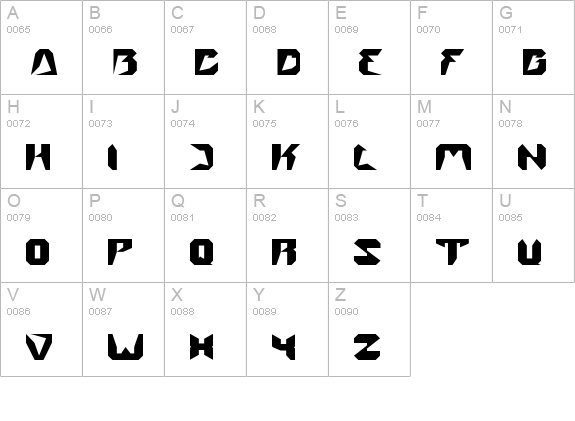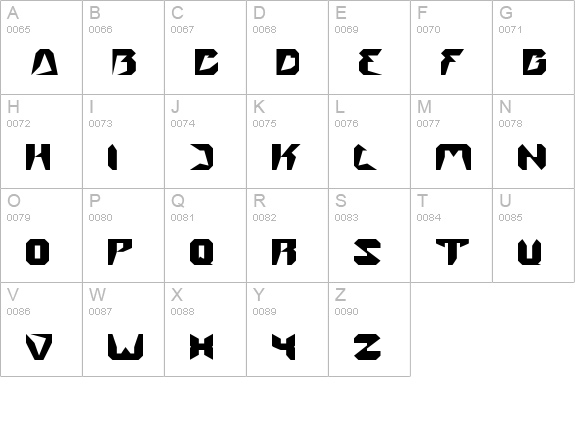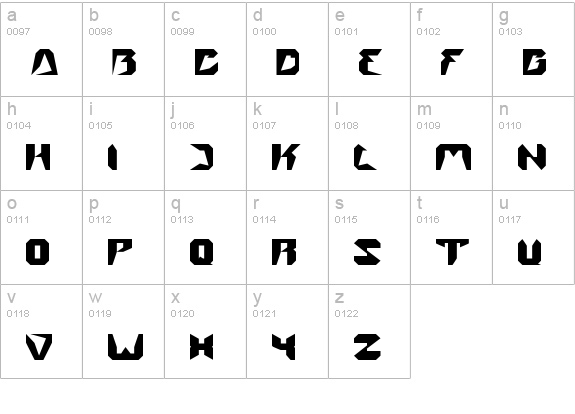
street Font Details
Introducing Street Font, a visually captivating typeface that exudes urban charm and embodies the energetic spirit of the streets. With its bold and edgy letterforms, Street Font is the perfect choice for projects that aim to make a bold statement. Designed with meticulous attention to detail, this unique font captures the essence of street art and graffiti, bringing an authentic urban feel to your designs. Its dynamic and expressive strokes create a sense of movement and excitement, ensuring that your message will truly stand out. Street Font is not just visually stunning, but also incredibly versatile. Whether you're designing a poster, a logo, or a website, this font will add a touch of urban flair to any project. Its wide range of weights and styles allow for endless creative possibilities, giving you the freedom to experiment and create truly unique designs. And the best part? Street Font is completely free to download at FontsMarket.com! That's right, you can easily access this amazing font and start incorporating its urban vibe into your designs without spending a dime. So why wait? Get your hands on Street Font today and let your creativity run wild!